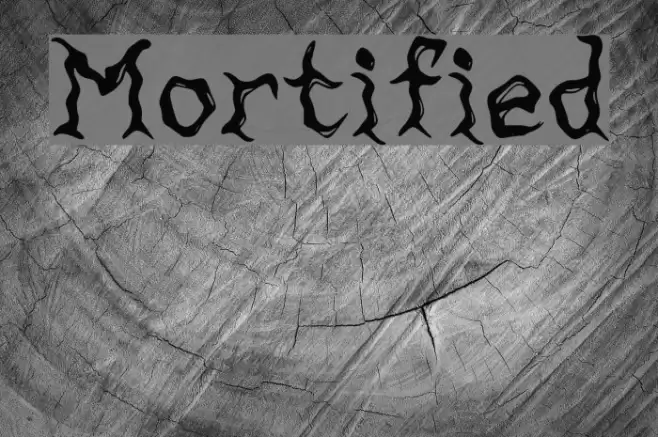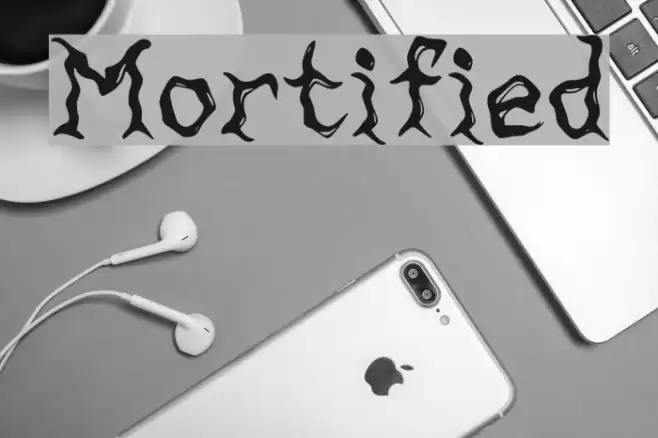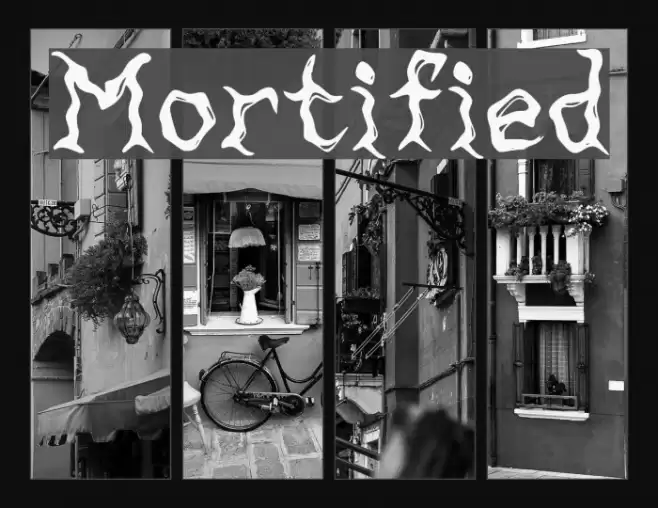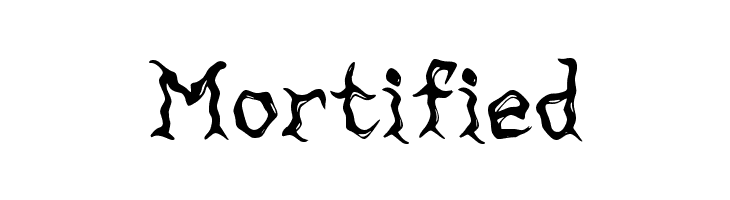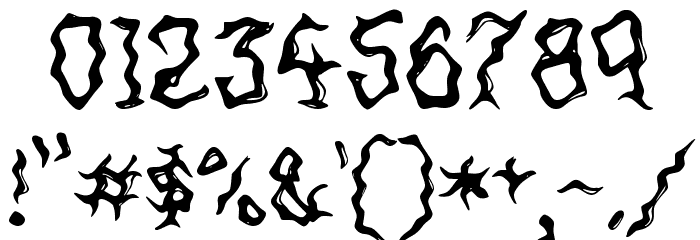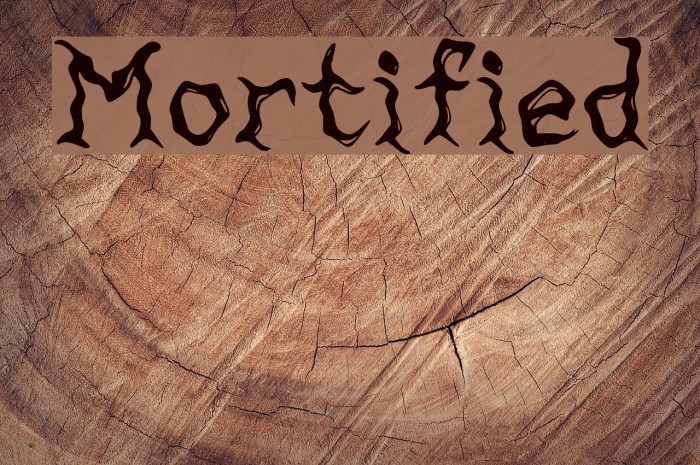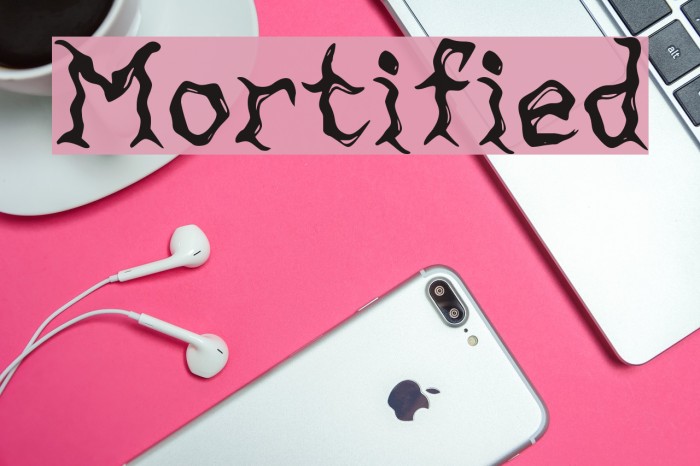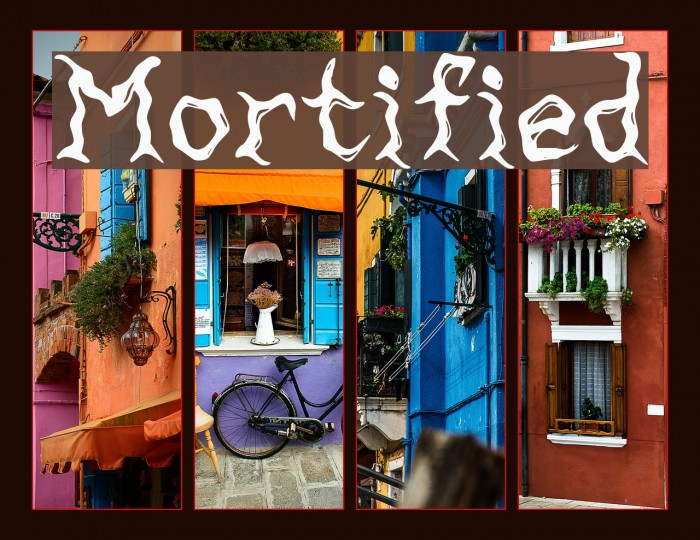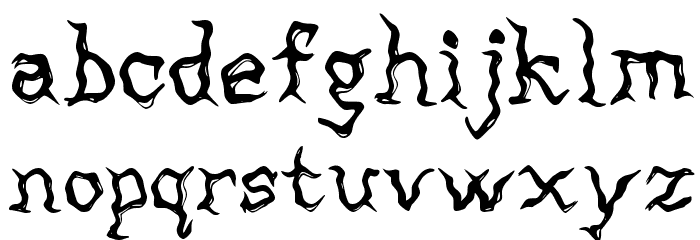
Mortified Font
Mortified Description
This font exudes a dark, eerie aesthetic with its jagged, irregular edges and twisted forms. Each character appears as if it has been carved or scratched, giving it a distressed and unsettling appearance. The uppercase and lowercase letters maintain a consistent style, with sharp angles and uneven strokes that suggest a sense of chaos and unpredictability. Numbers and special characters follow the same design principles, enhancing the overall theme of disarray. The font's unique style makes it suitable for projects that require a touch of horror or mystery, such as Halloween-themed designs, horror movie posters, or gothic-inspired artwork.
A jagged, eerie font with distressed, twisted characters ideal for horror themes from Uncategorized fonts.
- Proposed Projects: Halloween designs, horror movie posters, gothic artwork, mystery book covers.
- Overall Style: Gothic, Distressed